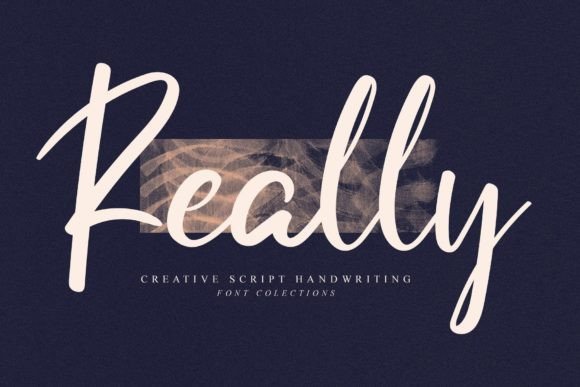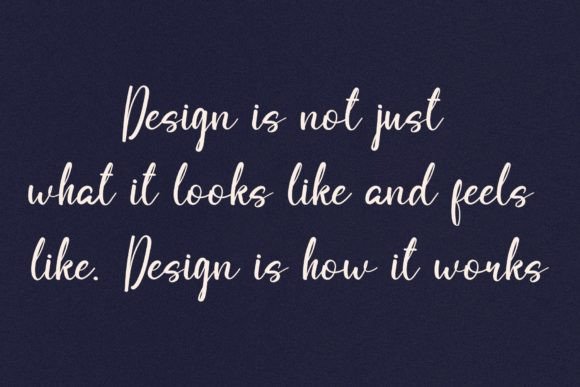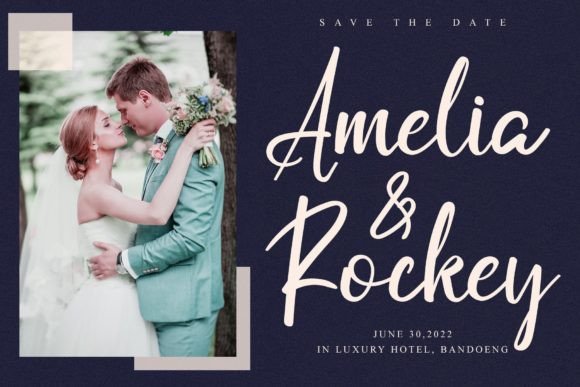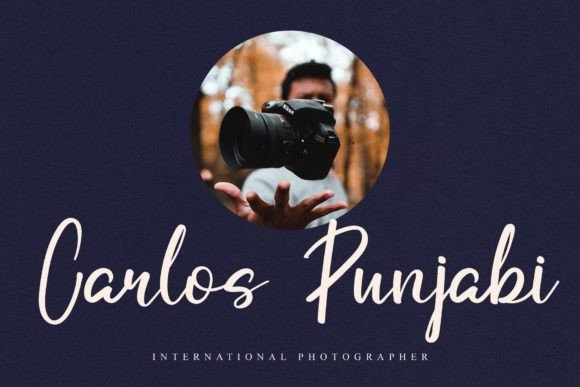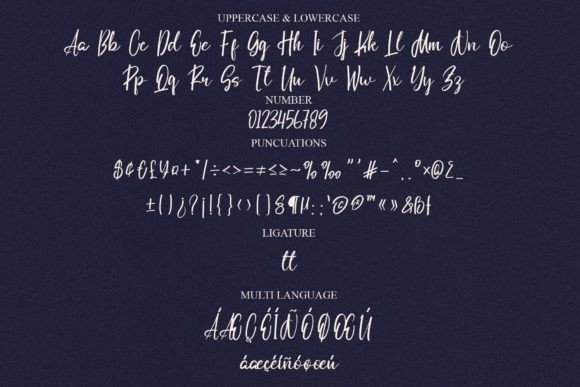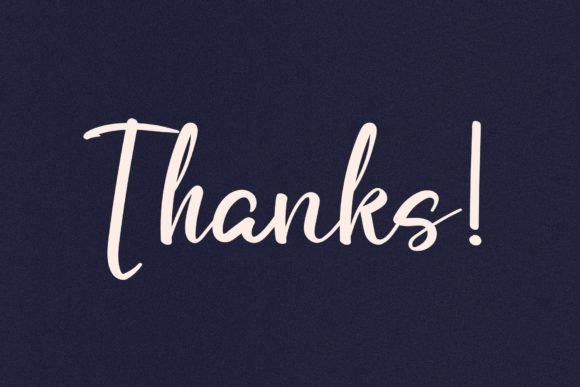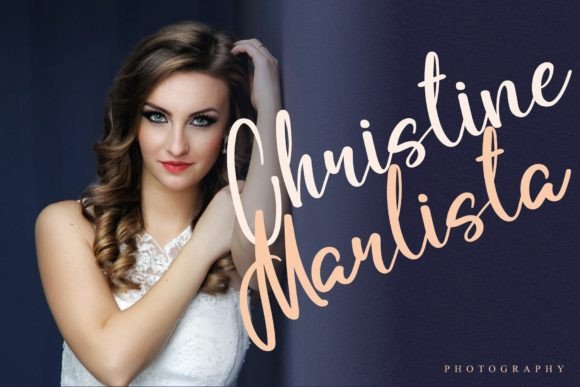
Really Font
About Really Font
“Really” sounds like a beautiful and chic handwritten font with a sophisticated and elegant touch. Fonts with these characteristics are often versatile and can add a touch of style and refinement to various design projects.
The description suggests that “Really” comes with stylish alternates and ligatures, enhancing its versatility and making it a perfect match for any project. Fonts with such features can offer creative possibilities and customization options for designers.
Consider incorporating “Really” into your projects, whether you’re working on branding, invitations, or any design element where a chic and elegant handwritten font is desired. Explore how its stylish alternates and ligatures can elevate the overall aesthetic of your work.
Enjoy using “Really” in your design endeavors, and may it become a go-to choice for projects where a beautiful and sophisticated handwritten font is needed. Fonts like “Really” can play a significant role in making your designs stand out with a touch of chic elegance.